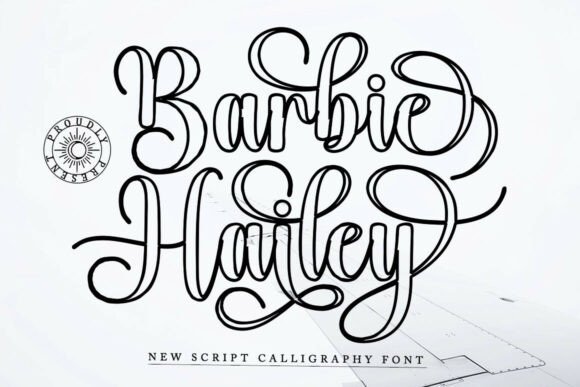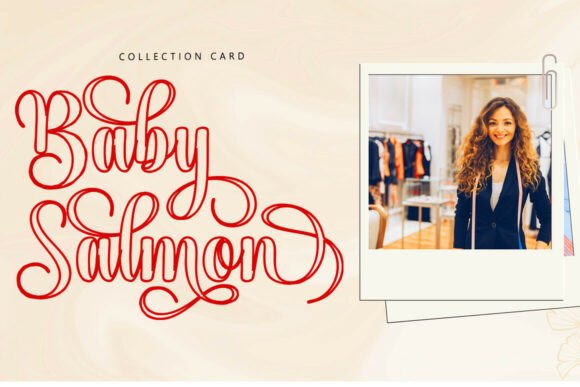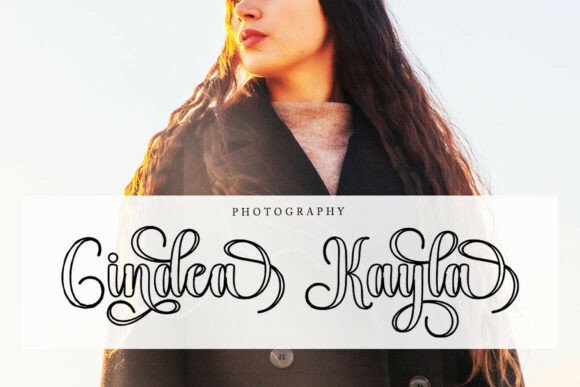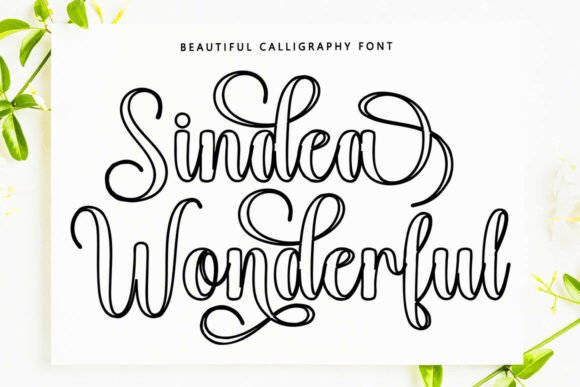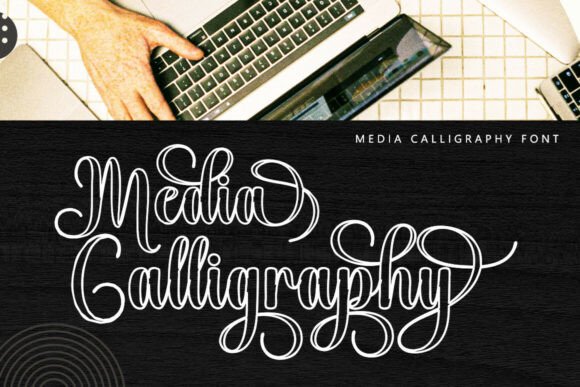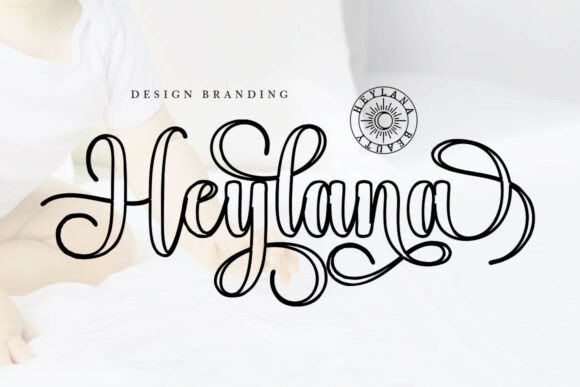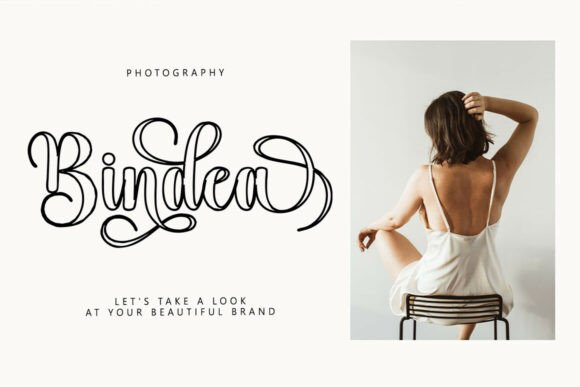
Unleashing the Beauty of Barbie Hailey Outline Font
Enter the Barbie Hailey Outline Font, a stunning script font that is sure to captivate your audience. This elegant and unique font is expertly designed to take your creative ideas to the next level. With its sleek, clean, and highly readable design, it’s perfect for a variety of formal applications, from invitations and labels to restaurant menus and logos.
As a valuable resource for designers, the Barbie Hailey Outline Font offers a full set of features, including uppercase and lowercase letters, alternative styles, ligature, punctuation, numbers, and multilingual support. Whether you’re a seasoned pro or just starting out, this font is sure to be a game-changer for your next project.
Barbie Hailey Outline Font Key Features
- Font Style: Outline font with a playful, cursive design, perfect for creative projects and decorative purposes.
- Unique Characteristics: Distinctive, whimsical design elements, including swashes and flourishes, add a touch of personality to text.
Barbie Hailey Outline Font Review
Overall, I was excited to dive into the “Barbie Hailey Outline Font”. The initial impression was quite strong, but as I dug deeper, I found some notable strengths and weaknesses.
- Playful and fun aesthetic: The font has a unique personality that’s perfect for projects requiring a touch of whimsy.
- Customizable: The font offers a range of style options, allowing designers to tailor the look to their specific needs.
- High-resolution images: The font’s images are crisp and clear, making it ideal for print and digital applications.
- Limited font sizes: The font’s scalability is limited, which may cause issues when working with large or small text sizes.
- Compatibility issues: I encountered some minor compatibility problems with certain software and operating systems.
- Not ideal for body text: While the font is perfect for headlines and titles, it may not be the best choice for body text due to its playful, attention-grabbing nature.
Overall, the “Barbie Hailey Outline Font” is a unique and eye-catching addition to any design project. While it has some limitations, its strengths make it a great choice for designers looking to add a touch of personality to their work.
Use the Barbie Hailey Outline Font to create eye-catching titles, headings, and other text elements that stand out from the background. Experiment with different font sizes, colors, and combinations to achieve the desired effect.
The Barbie Hailey Outline Font is ideal for use in:
- Graphic design projects
- Marketing materials